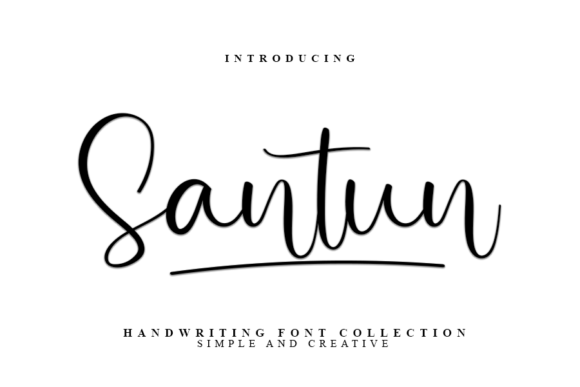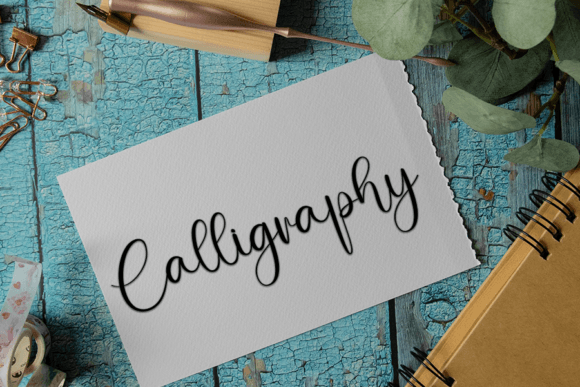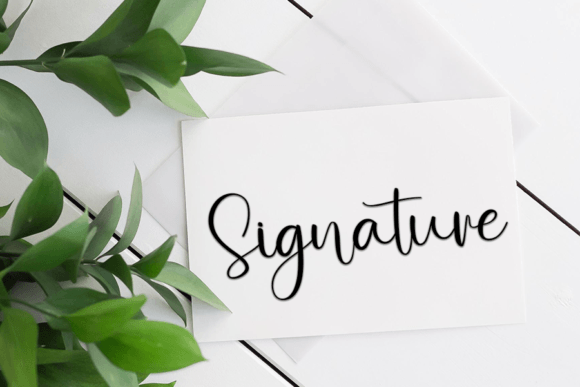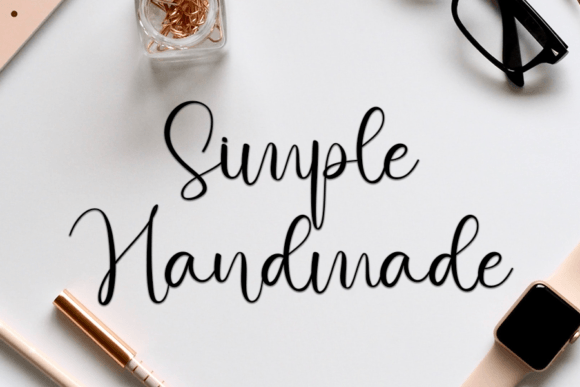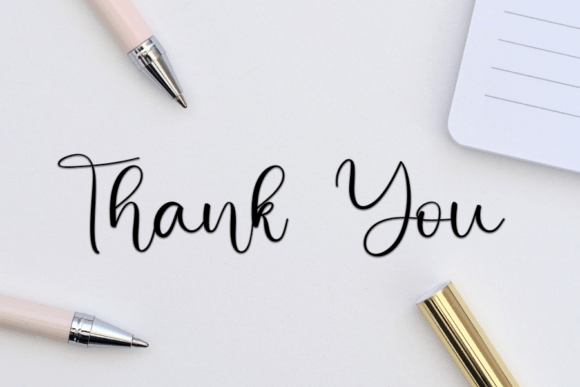
Santun Font
About Santun Font
The Santun Font Download is a bold and beautiful script font crafted with elegance and creativity. Its flowing strokes and confident curves make it an excellent choice for projects that need a strong yet stylish handwritten touch. With its smooth balance between modern design and traditional calligraphy, Santun has the ability to stand out in both casual and professional settings.
This typeface is versatile, allowing it to work across a variety of mediums such as print, digital, and product packaging. Whether you are crafting invitations, designing social media content, or creating a brand identity, the Santun Font Download will help you achieve a polished, professional look while maintaining a sense of personality.
Features of Santun Font
The Santun Font Download comes with a set of powerful features that make it both functional and visually appealing:
• Bold handwritten script style with smooth flow
• Uppercase and lowercase characters for design flexibility
• Complete set of numbers and punctuation
• Multilingual support for international use
• PUA-encoded for easy access to alternate glyphs
These features ensure that Santun is not only beautiful but also highly practical for a wide range of projects.
Best Uses for Santun Font
The Santun Font Download adapts effortlessly to many creative applications. Designers and creators can use it in projects such as:
• Crafts and DIY Projects – Perfect for personalized mugs, tote bags, and handmade gifts
• Digital Design – Enhances social media graphics, YouTube covers, and blog headers
• Invitations – Ideal for weddings, birthdays, and formal event stationery
• Branding Projects – Works beautifully for logos, product packaging, and boutique labels
• Presentations – Adds a unique, stylish edge to slides and visual reports
• Greeting Cards – Brings warmth and personality to holiday cards, thank-you notes, and everyday messages
With its bold personality and refined curves, Santun offers flexibility that makes it an essential font for both hobbyists and professional designers.
Why Choose Santun Font?
The Santun Font Download is more than just a decorative typeface; it is a practical design tool. Unlike some handwritten fonts that are too ornate or difficult to read, Santun strikes the perfect balance between beauty and clarity. Its bold yet elegant style makes it suitable for projects where visibility and aesthetics are equally important.
Designers choose Santun because it works across multiple industries, from wedding planning and event design to branding and digital marketing. Its bold strokes command attention, while its handwritten style adds warmth and authenticity.
If you are looking for a bold and beautiful script typeface to elevate your work, the Santun Font Download is the perfect choice. With its elegant design, multilingual support, and wide range of applications, Santun is a reliable addition to any font library. From crafts and invitations to branding and digital media, this font ensures your designs leave a lasting impression.